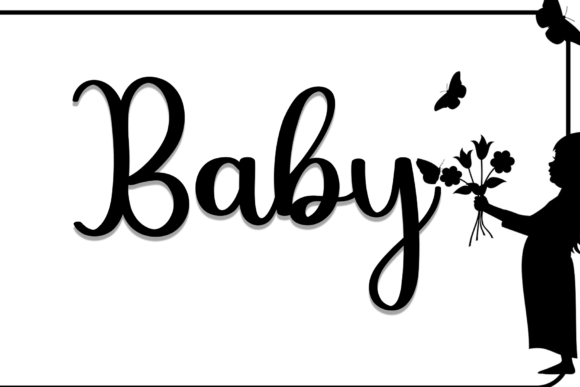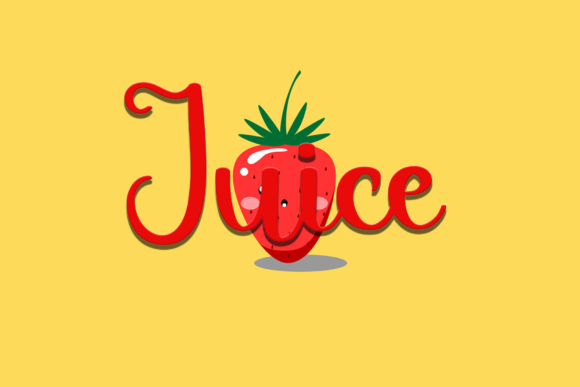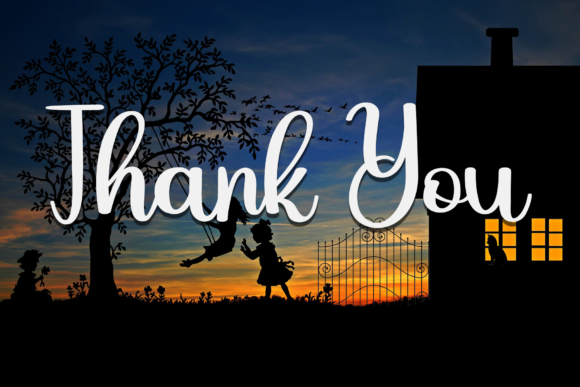
About Healing Font
“Healing” is a delightful script font that exudes sweetness, whimsy, and elegance. With its flowing and thin design, this font brings a touch of luxury to any design project. The characters dance along the baseline, adding a playful and enchanting quality that enhances the overall aesthetic. Whether you’re working on invitations, branding materials, or any creative project, “Healing” is crafted to bring a luxury spark to your designs.
The whimsical and flowing nature of “Healing” is showcased in its thin script design. The characters gracefully move along the baseline, creating a sense of playfulness and movement. This makes the font an excellent choice for projects where a touch of whimsy and elegance is desired.
Incorporating “Healing” into your design projects will add a luxurious spark. The thin script and dancing characters contribute to an overall aesthetic that feels refined and sophisticated, making it particularly fitting for projects that demand a touch of elegance and exclusivity.
Whether used for invitations, branding, or any design endeavor, “Healing” is a font that brings a delightful and luxurious quality to your work. Its thin script and playful characters create a visual harmony that elevates the overall aesthetic, making it a standout choice for those seeking a blend of sophistication and whimsy.
In summary, “Healing” is a sweet and whimsical script font designed to add a luxury spark to your design projects. Its flowing and thin script, combined with dancing characters, creates an elegant yet playful vibe. Let “Healing” be the font that infuses your creations with a touch of charm and luxury, turning your designs into enchanting works of art.